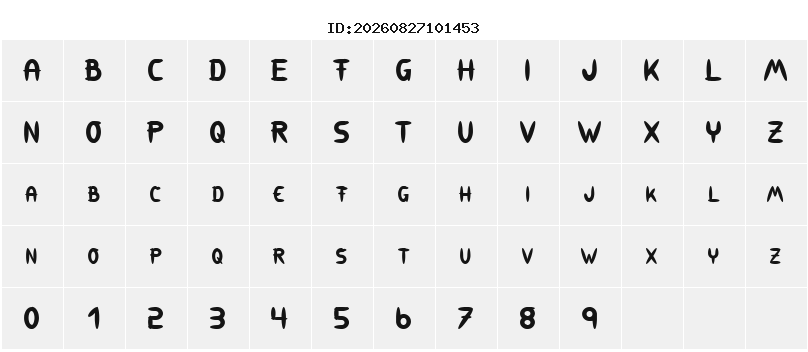
• Font Name: 309
• Font ID: 309
• Full Font Name: 309
• Version: Macromedia Fontographer 4.1 21.09.98
• PostScript Name: 309
• Copyright: designed by Dieter Schumacher © 1998
About 309.ttf
309.ttf is a modern, elegant sans-serif font designed for ultimate readability and visual harmony. Perfect for branding, headlines, web design, and print materials.